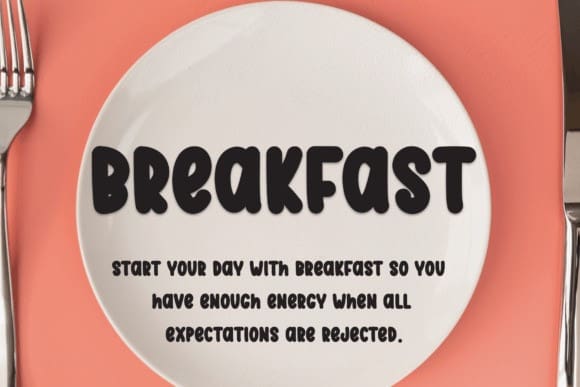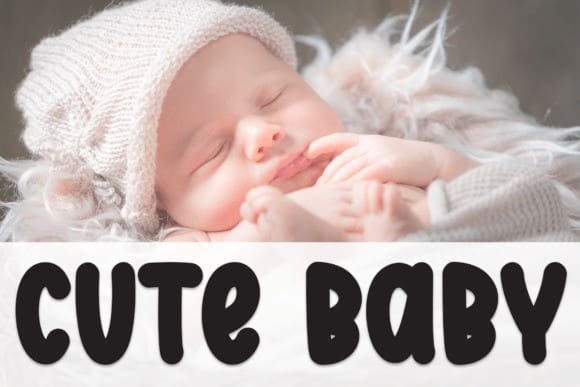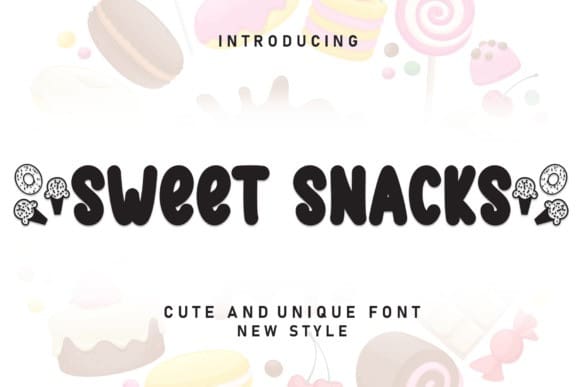
Sweet Snacks Font
Sweet Snacks Font is a sweet and friendly handwritten font. Fresh and casual, this font is ideal for writing wedding invitations, cards, or any other design that might need a lovely touch.